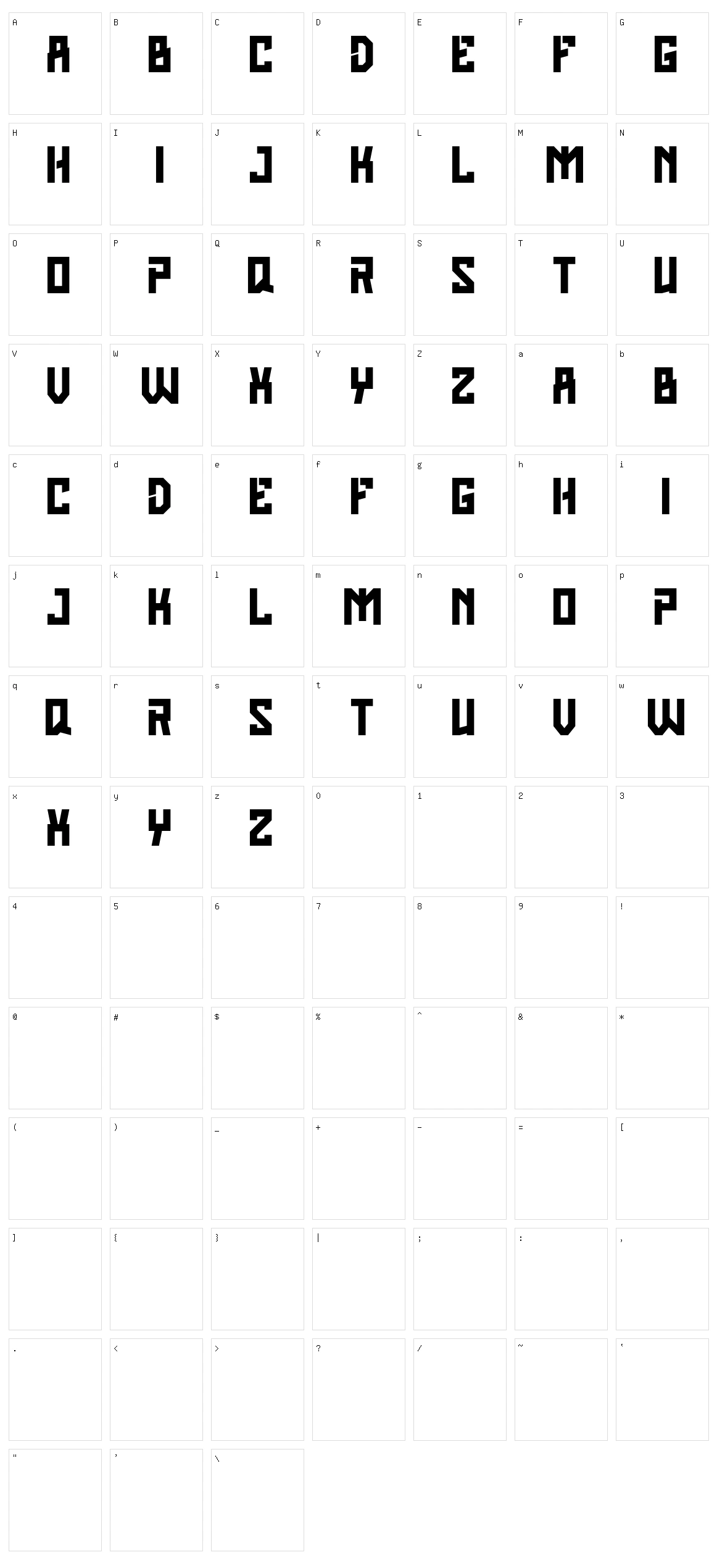
The free font Avraam Buscha is carefully designed by Afiq Anggriawan, showcasing a thoughtful balance of creativity and usability and falls under the Russian font style. When you download the ZIP file, it contains only 5.65 KB of font files, making it lightweight and quick to download. Please review the license details below to understand permitted usage and distribution rights. If license information is not available, we recommend using this font for personal projects only or contacting the author directly for commercial usage permissions.